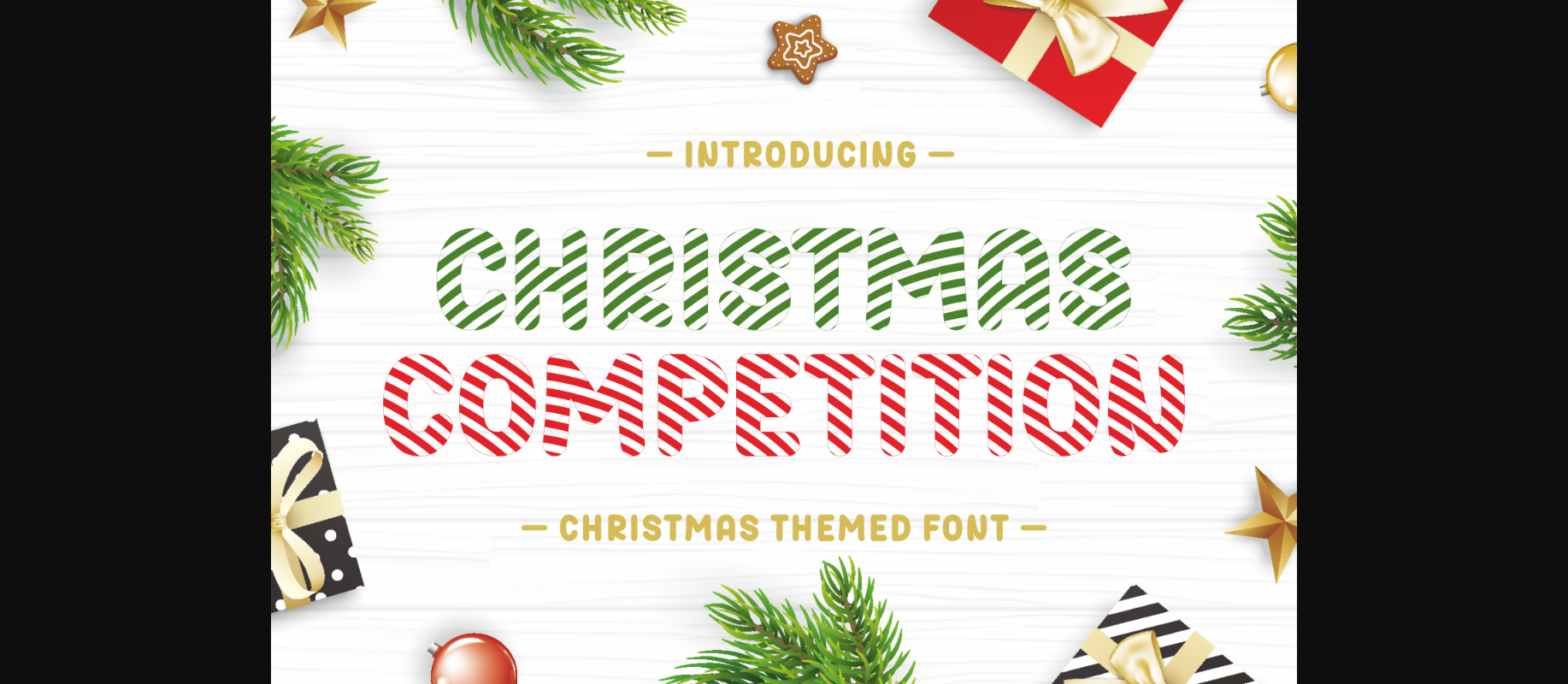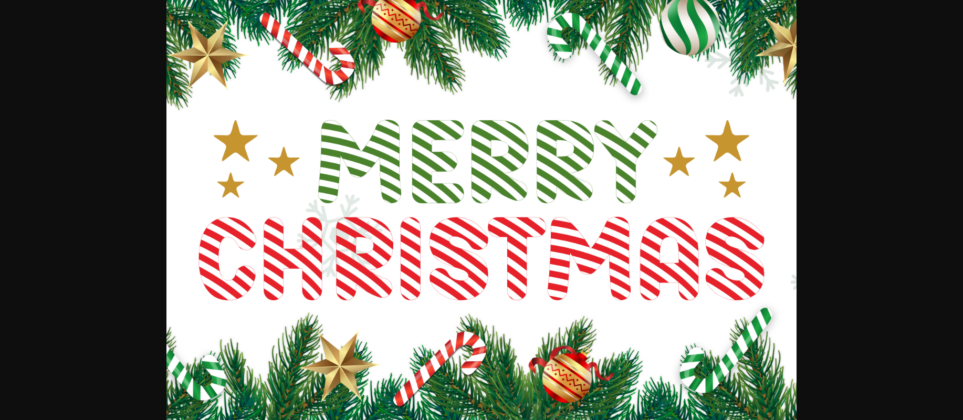
About Christmas Competition Font
The “Christmas Competition” font is a playful and festive typeface that captures the spirit of the holiday season. Its letters are whimsically shaped like striped Christmas candy, adding a delightful and sweet touch to your holiday-themed projects.